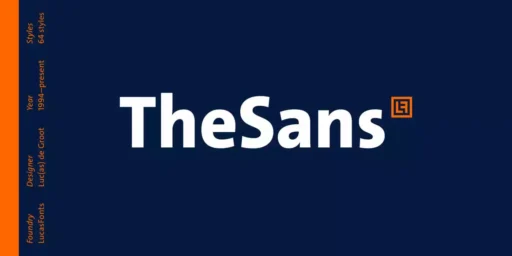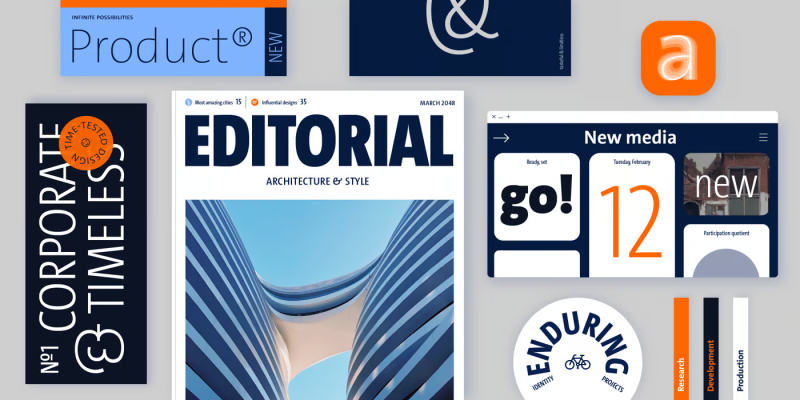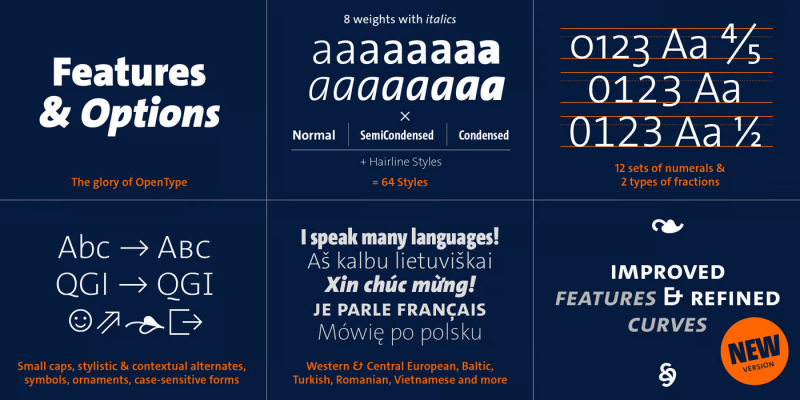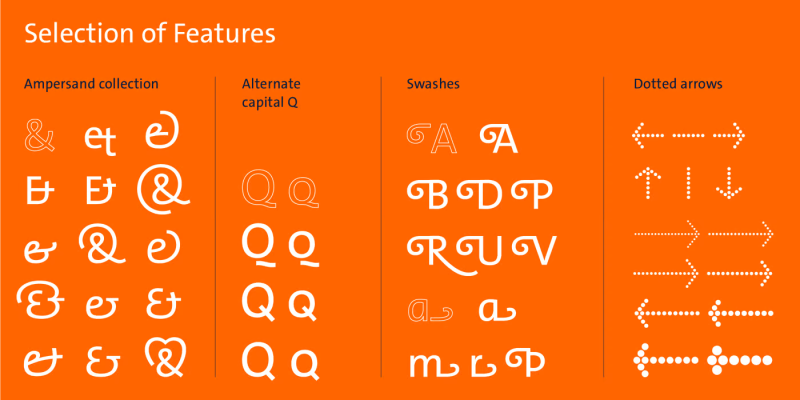
TheSans Font
TheSans is a modern sans serif font family of the Thesis superfamily by the Dutch type designer Luc(as) de Groot. Font TheSans has become the face of thousands of organisations, publications and websites. It is in frequent use for corporate design, editorial design and new media. The TheSans font family is available in 76 different styles and family packages to give the designers the freedom to use any weight or style in their designs.
Luc(as) de Groot designed this font in 1994, which LucasFonts distributed. He wanted to create a font that would easily fit into any context yet still be easily readable and visually appealing. This typeface was released by LucasFonts and became pretty popular because of its numerous styles and versatility in design.
The Sans has perhaps one of the most easily recognizable features in that it comes in a number of weights and widths. This typeface family is available in ultra-light to black weights and from condensed to extended widths. This enables the designer to move beyond the simple choice of serif and sans-serif typefaces but not into the territory of decorative or novelty fonts.
Apart from the different weights and widths, TheSans has several other features, including the hairlines font set, which is very helpful in detailed work and small prints. It also supports a number of languages, for instance, English, Spanish, German, French, Dutch, Turkish, Czech, Polish, Slovak, Hungarian, Romanian, Croatian, Latvian, Arabic, Persian, Pashto, Sindhi, Urdu, Russian and Ukrainian, Bulgarian, Serbian, Greek, etc.
Furthermore, TheSans offers different figure styles such as tabular lining figures, proportional lining figures, tabular old style figures, proportional old style figures, and lining figures low. This flexibility implies that designers can develop the characters in a way they feel most appropriate for the particular project, which means that the balance is always right.
Due to its very broad application range, TheSans is an ideal choice for various fields and projects. It is often used in business design to depict professionalism, accuracy, and contemporaneity. Further, Its simplicity and absence of bold colours or fonts make it perfect for business logos, company brochures, presentations, and websites.
Typography is the other area where TheSans is quite effective in particularly editorial design. This font has good readability, and it comes in numerous weights, making it appropriate for use in headlines, subheaders, body texts, and captions. It is also suitable to incorporate visually arresting designs that map out the textual content flow for easier reading.
In new media, TheSans has been as versatile as it can be. It also has a minimalist design that easily fits the interface of a digital platform. It is a perfect choice for mobile application interfaces and social media designs and icons to enhance the usability and aesthetics of a particular site or mobile application.
TheSans Font is a Sans Serif Fonts font that brings a professional and versatile look to your projects. TheSans is a modern sans serif font family of the Thesis superfamily by the Dutch type designer Luc(as) de Groot.